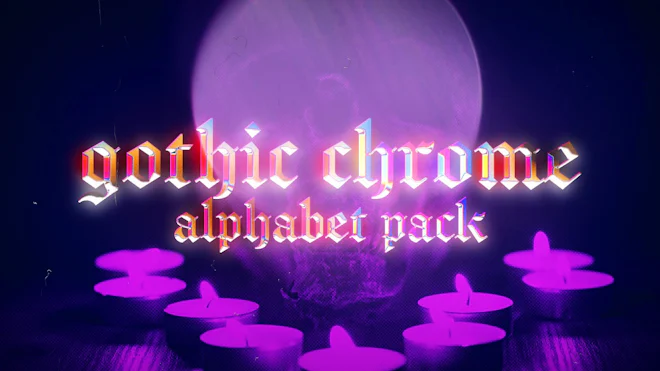
Pack Of 61 gothic chrome typefaces on alpha channel, including a dark metallic chrome alphabet featuring sharp, ornate letterforms with reflective highlights and dramatic depth.